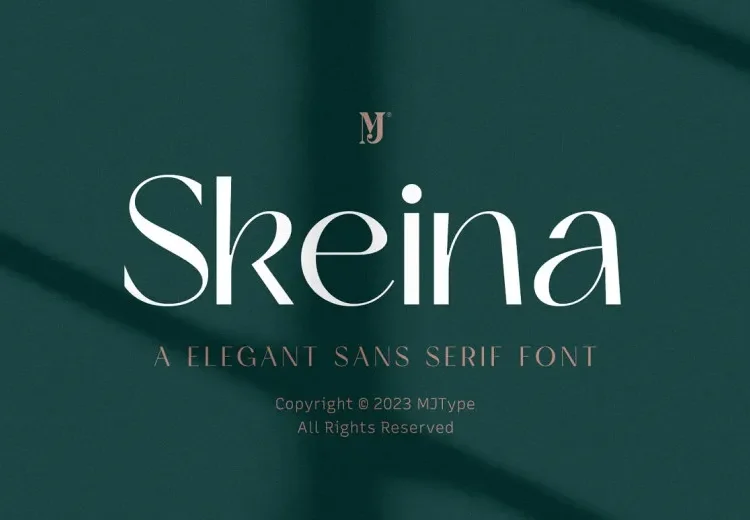
Skeina Font
Skeina is a refined sans-serif typeface that masterfully blends modern aesthetics with traditional design elements. Its clean lines and versatile character make it an ideal choice for adding sophistication and clarity to any project, whether digital or print.
Perfectly suited for various creative applications, Skeina enhances branding, editorial layouts, packaging designs, and more. The font’s contemporary yet timeless appeal ensures your work exudes elegance and professionalism while maintaining a modern edge.
With its adaptability and sleek design, Skeina is the ultimate solution for projects demanding both style and functionality.